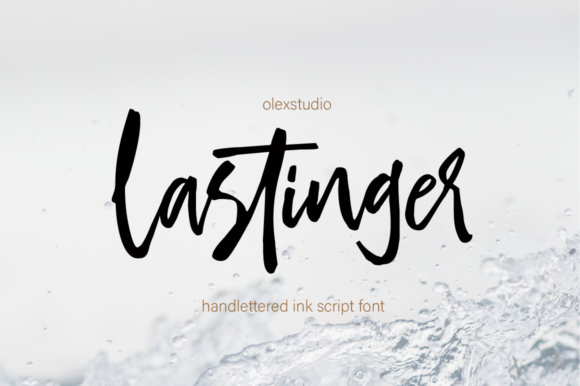
Introducing Lastinger Font, an extraordinary script font that exudes modern elegance and charm. Every curve and stroke of this font is designed to evoke a sense of beauty and timeless sophistication. Lastinger Font isn't just a collection of letters; it's an art form that breathes life into your words, transforming them into visual masterpieces.
With its delicate strokes and flowing lines, Lastinger Font gracefully dances across your designs, adding a touch of enchantment and artistic flair. Dive into a world where creativity has no limits and let Lastinger Font guide you to create designs that resonate with hearts and leave a lasting impression.
Imagine the allure of wedding place cards adorned with Lastinger Font. The names of your guests, elegantly inscribed in this beautiful script, become more than just placeholders; they become personal mementos that speak of your attention to detail and appreciation for the special moments you share. From formal invitations to heartfelt notes, Lastinger Font adds a touch of magic, evoking a sense of romance and heartfelt connection.
Lastinger Font is more than just a font; it's an extension of your creativity, a tool that unlocks a world of artistic possibilities. Its versatility extends beyond wedding place cards, making it the perfect choice for a myriad of projects. From branding and logos to social media graphics and website designs, Lastinger Font seamlessly adapts, bringing a touch of elegance and sophistication wherever it's used.
Indulge in the beauty and grace of Lastinger Font, and let your designs radiate with timeless charm. It's time to elevate your creativity and embark on a journey of visual storytelling, leaving your audience captivated and inspired. Embrace the power of Lastinger Font today and witness your designs transform into works of art.